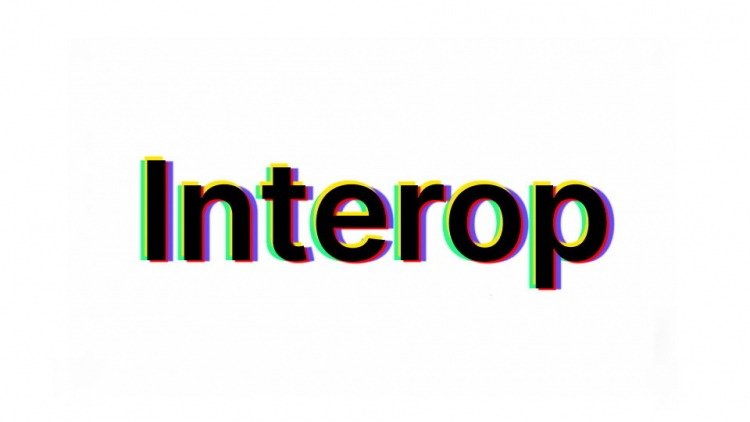
Interop Font Family
Interop Font
Interop is a modern geometric and sans serif font inspired by the circular structures of the planets, blending modern design with a futuristic perspective. It comes with 7 weights from Thin to Bold.
Interop is a versatile typeface suitable for user interfaces with focus on high legibility of small-to-medium sized text on computer screens.